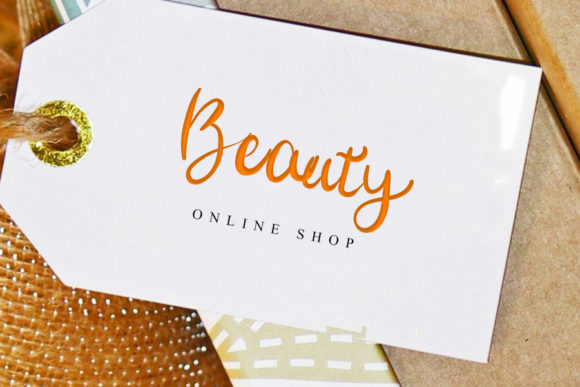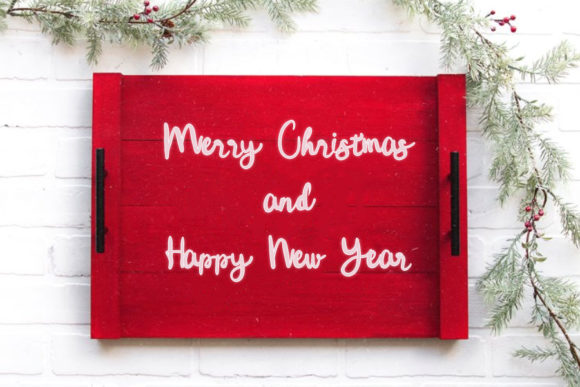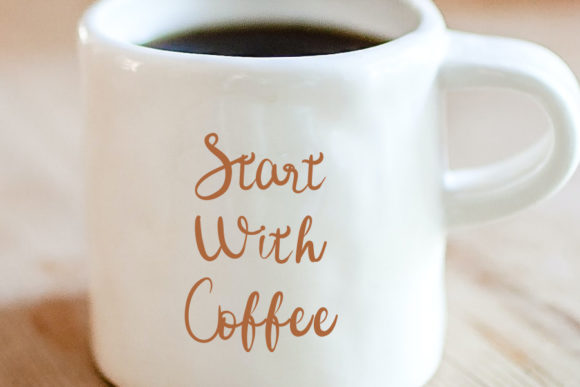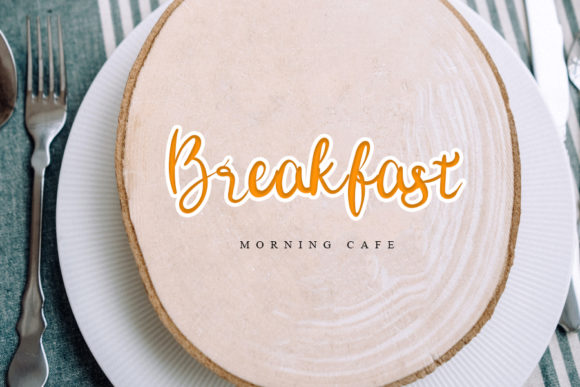
Discover the Elegance of Amartha Font: A Minimalist Script Font for Every Design Need
In the world of typography, fonts play a crucial role in conveying messages, evoking emotions, and creating a lasting impression. For designers and crafters, finding the perfect font can be a daunting task. However, if you’re looking for a font that embodies elegance, simplicity, and versatility, look no further than the Amartha Font. This beautiful script font is designed to bring a touch of sophistication and charm to any design project.
The Beauty of Amartha Font
Amartha Font is a minimalist and beautiful script font that exudes a sense of casual charm. Its down-to-earth feel makes it incredibly readable, even in small sizes. The font’s simplicity is its greatest strength, allowing it to adapt seamlessly to various design contexts. Whether you’re working on a busy background or creating a standalone headline, Amartha Font is sure to make a statement.
Key Features of Amartha Font
- Minimalist Design: Amartha Font boasts a clean and minimalist design that ensures clarity and readability.
- Script Elegance: The font’s script style adds a touch of elegance and sophistication to any design.
- Casual Charm: Amartha’s casual charm makes it perfect for designs that require a friendly and approachable tone.
- Versatility: This font is incredibly versatile and can be used in a wide range of design projects, from branding and advertising to packaging and digital media.
Uses of Amartha Font
Amartha Font is an incredibly versatile font that can be used in various design projects. Here are some ideas to get you started:
- Branding and Logo Design: Use Amartha Font to create a memorable and elegant brand identity.
- Advertising and Marketing: The font’s readability and charm make it perfect for creating eye-catching ads and marketing materials.
- Packaging Design: Add a touch of sophistication to your product packaging with Amartha Font.
- Digital Media: Use the font in your digital projects, such as website design, social media graphics, and email marketing campaigns.
Why Choose Amartha Font?
With so many fonts available, why choose Amartha Font? Here are a few reasons:
- Unique Style: Amartha Font offers a unique and distinctive style that sets it apart from other fonts.
- Ease of Use: The font is incredibly easy to use and can be integrated seamlessly into your design workflow.
- High Readability: Amartha Font is designed to be highly readable, even in small sizes.
In conclusion, Amartha Font is a beautiful and versatile script font that is perfect for designers and crafters looking for a minimalist and elegant typography solution. Its casual charm, readability, and adaptability make it an excellent choice for a wide range of design projects. Whether you’re working on branding, advertising, packaging, or digital media, Amartha Font is sure to make a lasting impression.